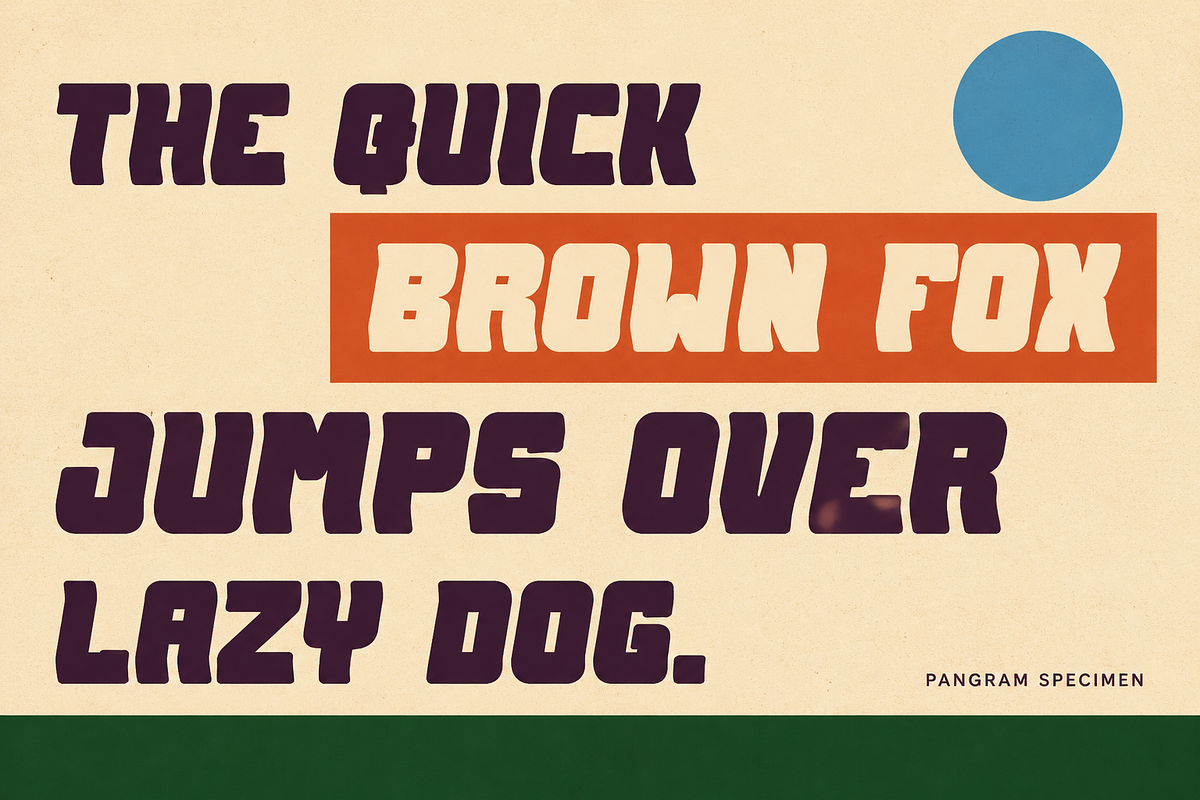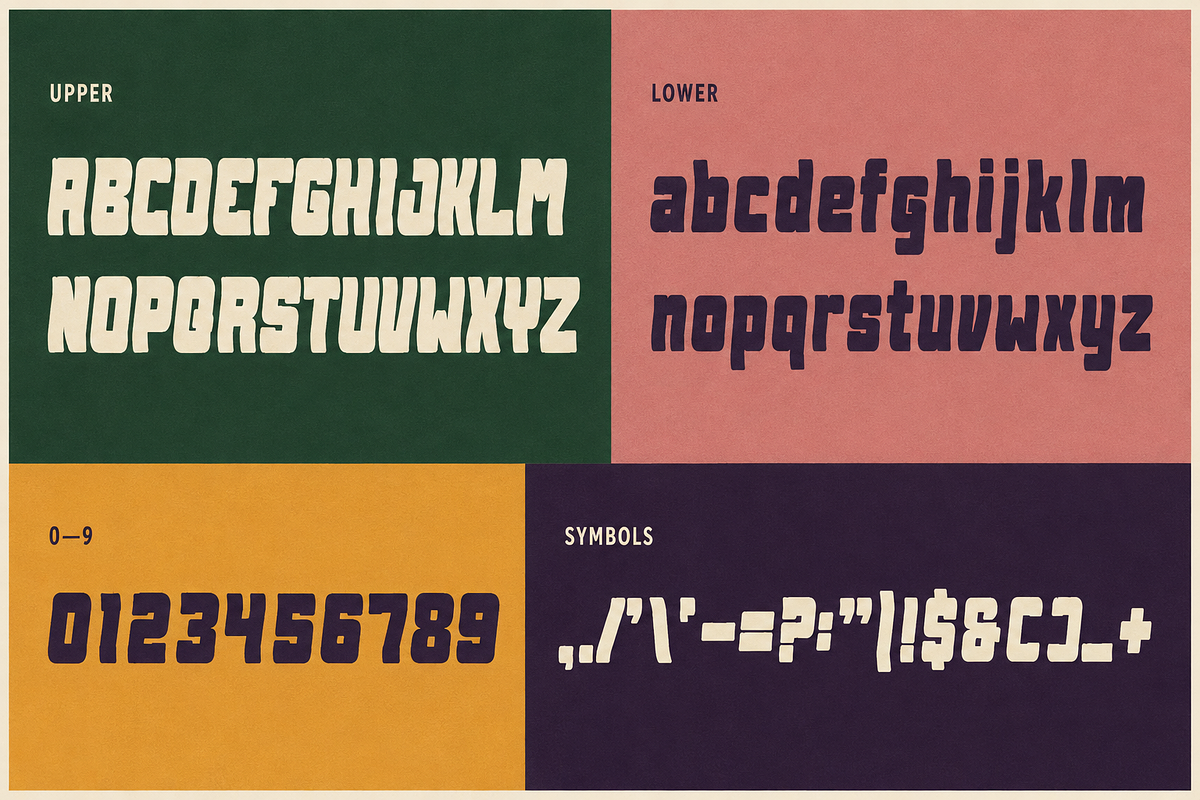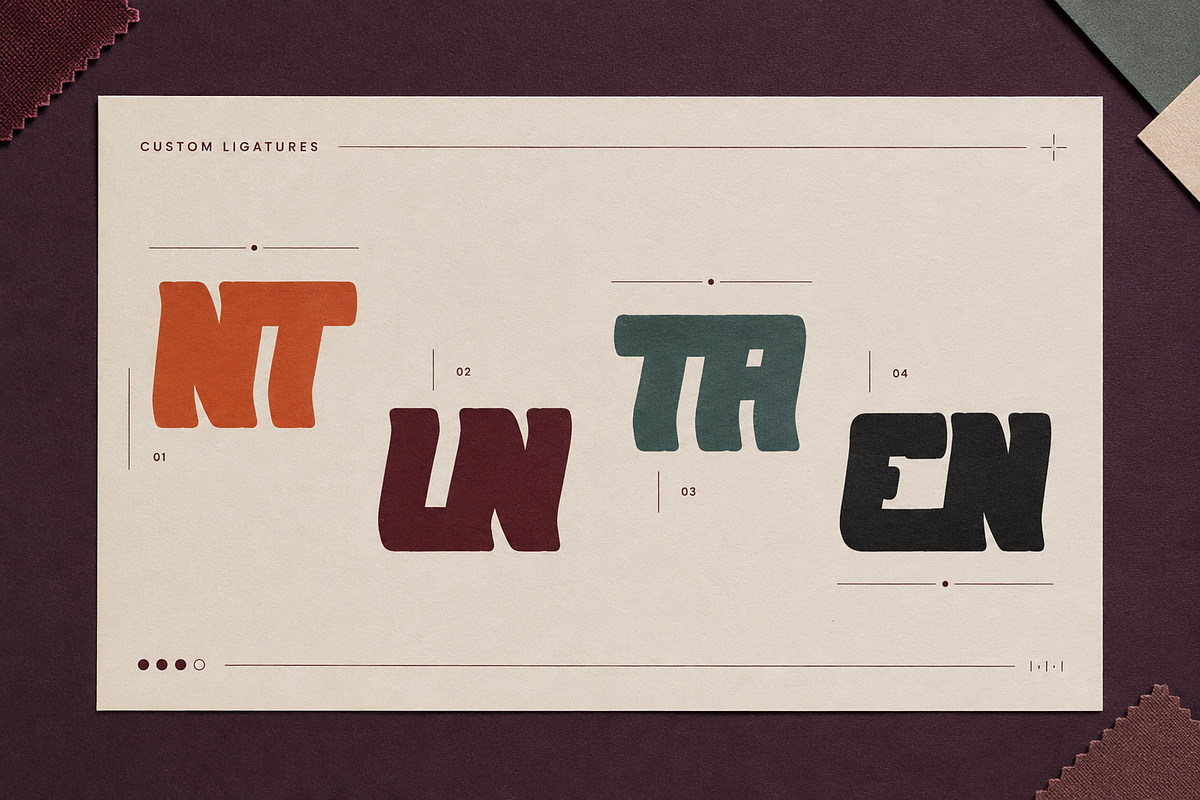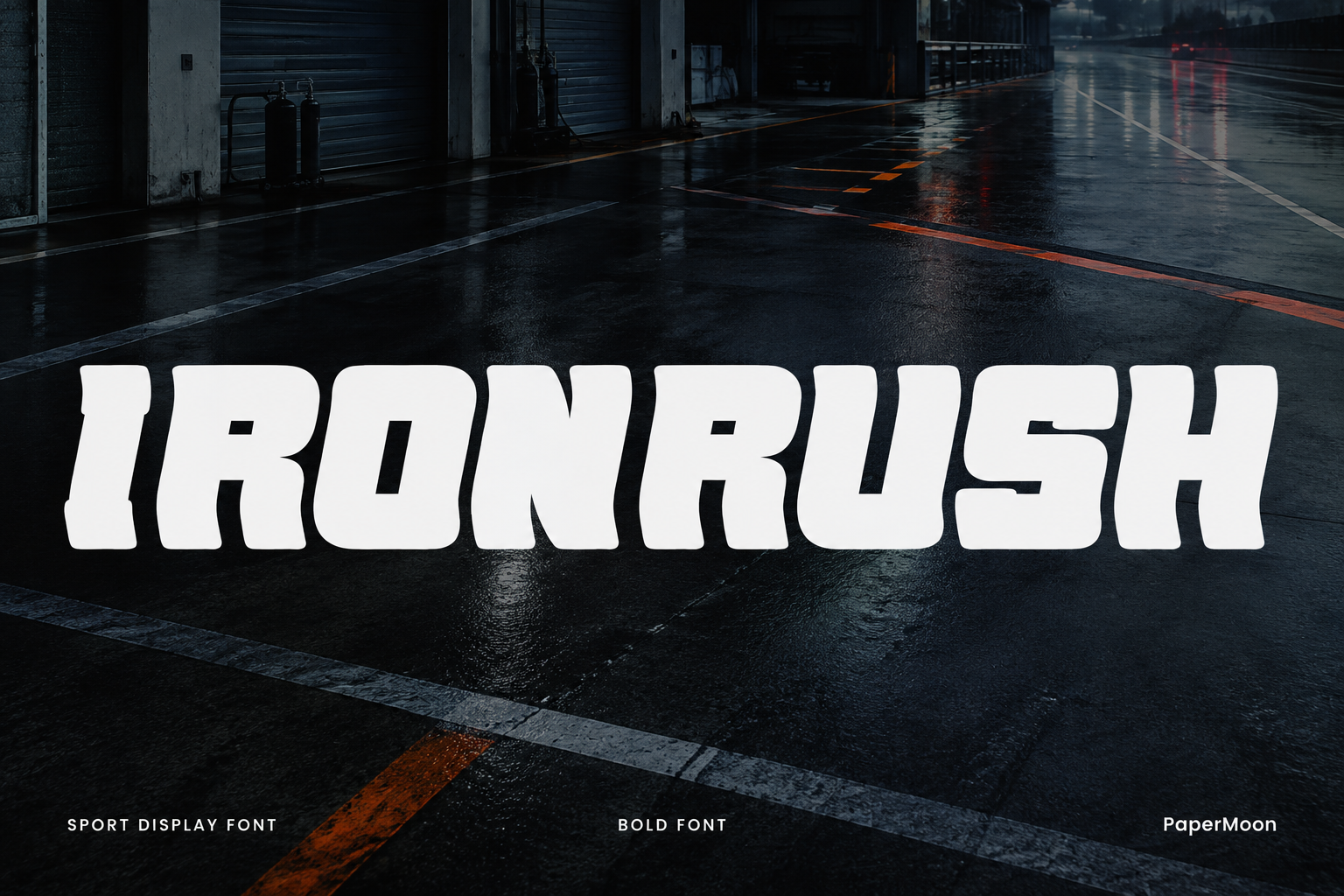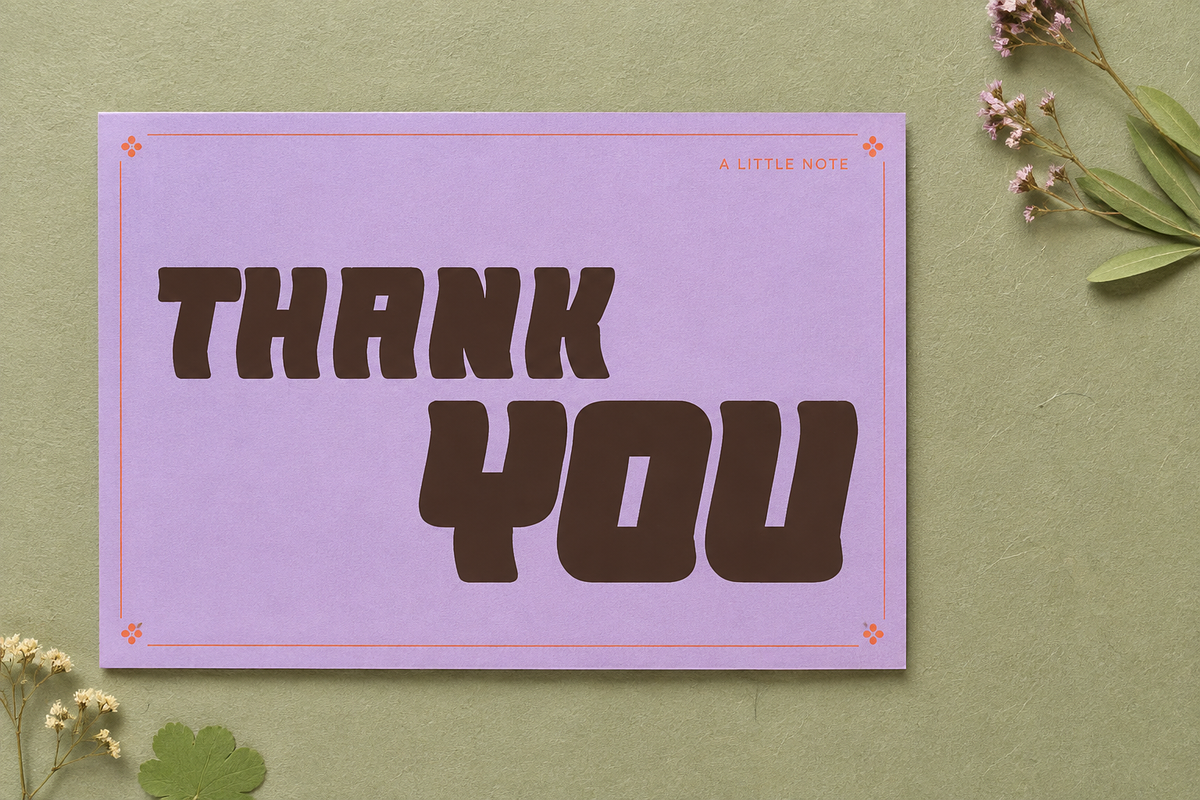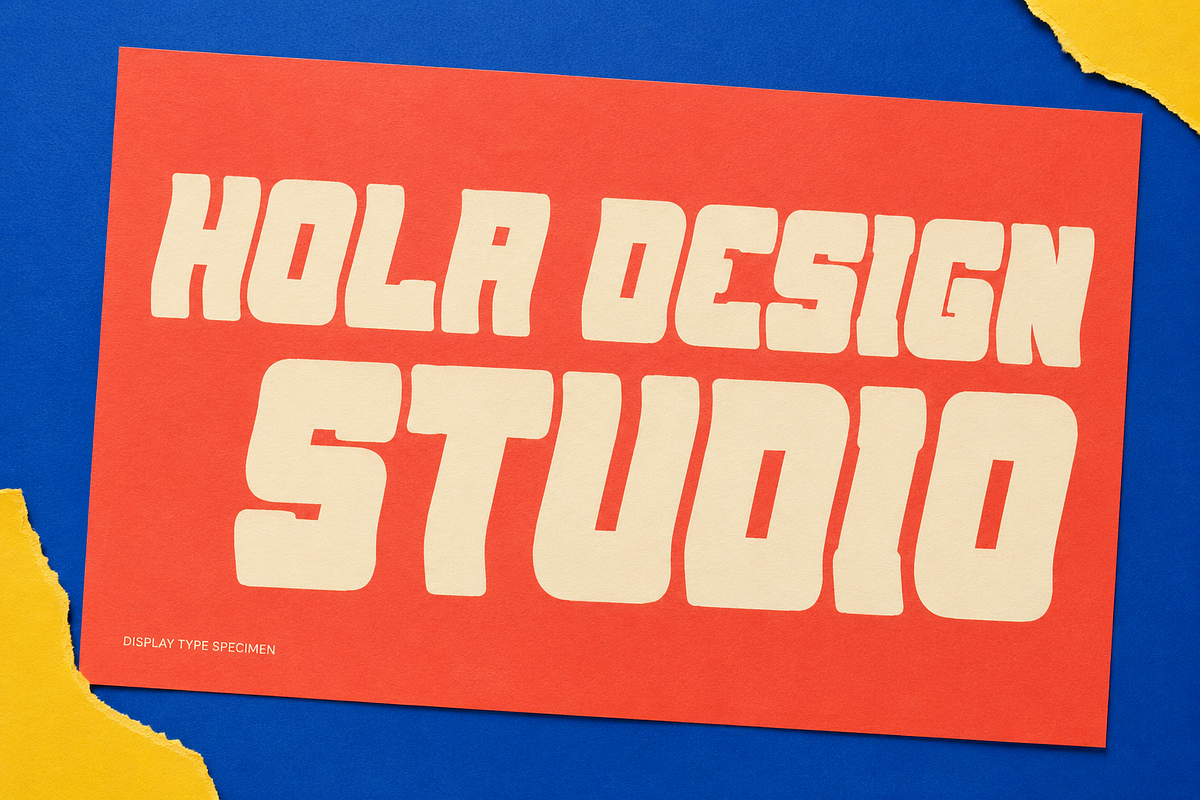
IronRush - Gym Sport Display Font
IronRush is a bold gym sport display font built for high-energy work that needs to hit hard at a glance. No soft curves, no delicate hairlines - just strong athletic lettering that carries the weight of a champion across every project you set it in.
Bold athletic letterforms: Heavy, confident strokes with a sporting attitude. Made to stand out on gym walls, sportswear, posters and screens.
OpenType kerning and ligatures: Clean spacing and automatic letter joins for typesetting that stays tight and professional in compatible apps.
Use it for:
Gym and fitness branding, promos and social media graphics
Sportswear, team apparel and athletic merchandise
Posters, flyers and event artwork
Movie titles, gig flyers and album covers
Logos, labels and bold headlines